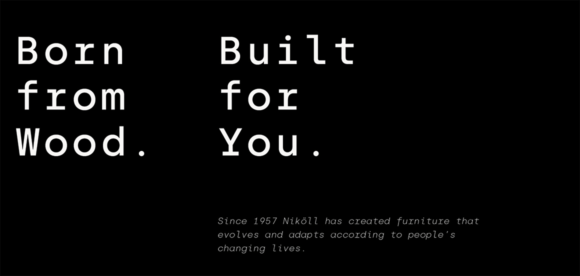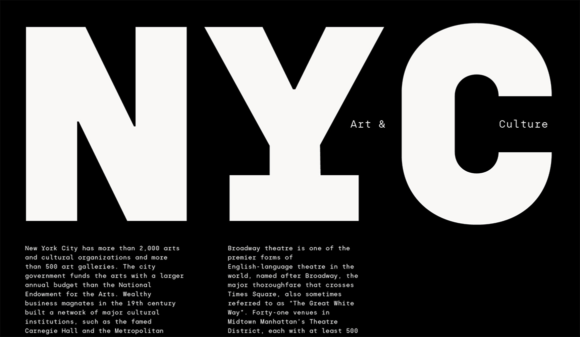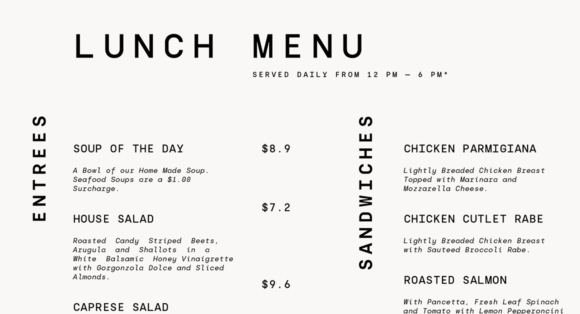
Silka Mono is a contemporary geometric monospaced typeface in 16 styles, recently released by atipo foundry. The regular weight is free to download, all the other styles can be purchased with the “pay what you want” model.